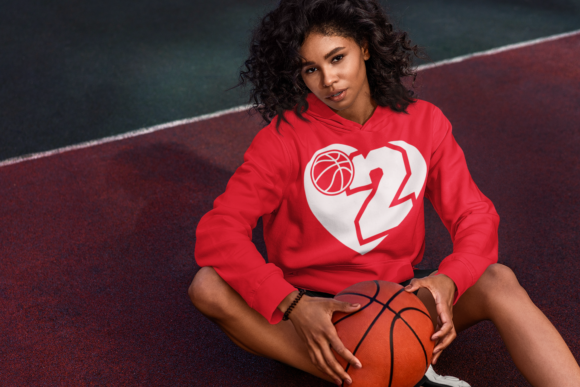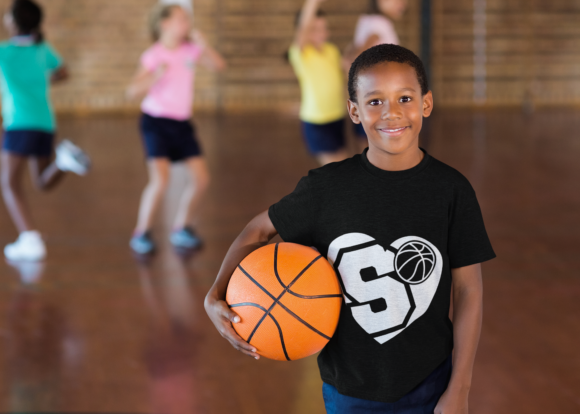
Introduction to Caty Loves Basketball Font
Have you ever been brainstorming ideas for a creative project and suddenly a spark of inspiration hits you? That’s exactly what happened when I stumbled upon the Caty Loves Basketball Font. The moment I saw its sporty, energetic vibe, I knew I had to dive deeper and explore its endless possibilities.
As a designer, finding the perfect font can make all the difference in bringing a project to life. The Caty Loves Basketball Font is a game-changer, offering a unique and high-quality design resource that’s perfect for creating eye-catching posters, flyers, and prints. With its transparent background and sleek design, this font is sure to elevate any creative project.
Key Features of Caty Loves Basketball Font
- Unique, hand-drawn design for a creative project, perfect for basketball enthusiasts and fans of Caty.
- High-quality font with a transparent background, ideal for use on various backgrounds and designs.
- Designed with a high resolution of 300 DPI, ensuring crisp and clear text in any size or format.
- Suitable for use in various creative projects, such as logos, posters, social media graphics, and more.
Honest Review: Caty Loves Basketball Font
I recently came across the Caty Loves Basketball Font and decided to give it a try for a creative project. One of the things that immediately stood out to me was its high quality, which is often hard to find in free design resources.
What works well with this font is its unique and playful style, perfect for projects that need a bit of flair. The transparent background option also gives you a lot of flexibility when using it in different designs. ✨
- Unique and playful style
However, there are some limitations to consider. For example, the font might not be suitable for all types of projects, and the character set is somewhat limited. ⚠️
Overall, I was impressed with the Caty Loves Basketball Font, especially considering it’s a free download. While it may not be perfect for every project, it’s definitely a great addition to any designer’s toolkit.
Tips for Getting the Most Out of Caty Loves Basketball Font
Use Caty Loves Basketball Font for creative projects, such as designing posters, flyers, or social media graphics. This high-quality font is a great design resource for any project. To get the most out of it, use it in combination with other design elements, such as images and graphics.
Caty Loves Basketball Font is perfect for sports-themed designs, such as basketball team logos, jerseys, or promotional materials. You can also use it for educational projects, such as designing worksheets or presentations about sports. Download the font for free and start creating your design project today.